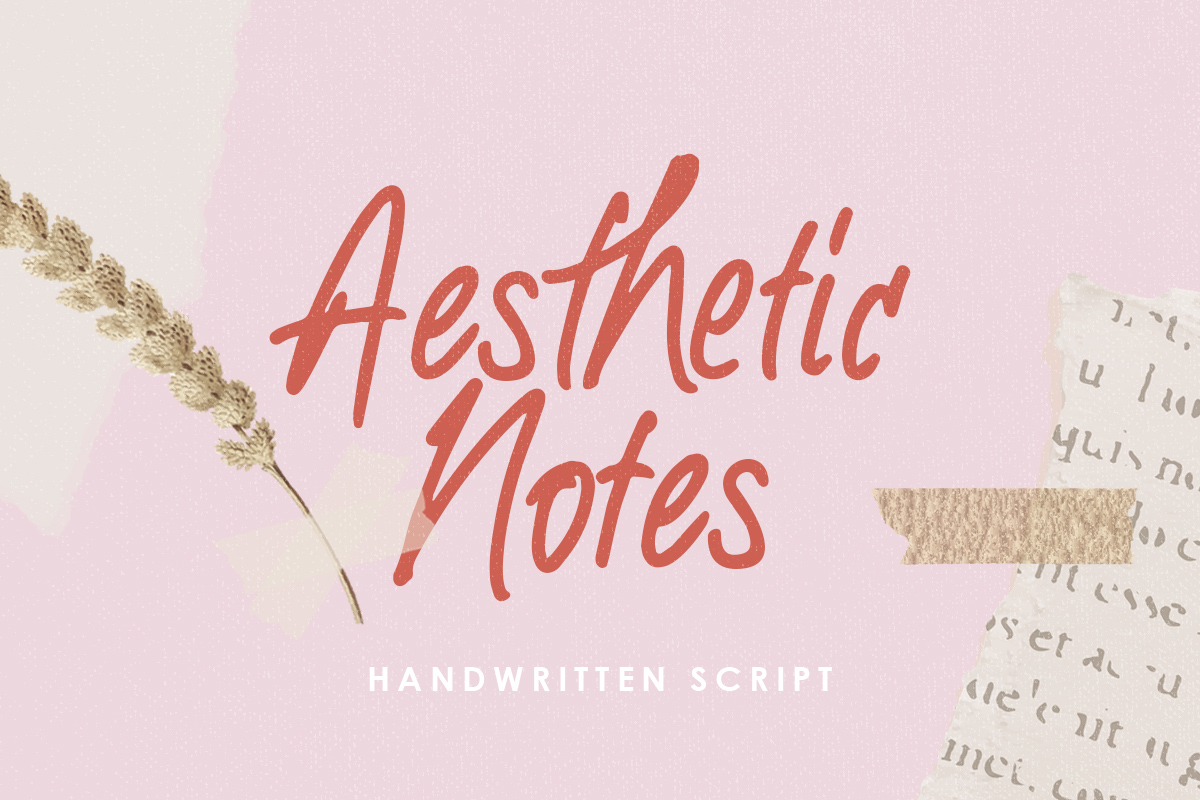
Aesthetic Notes Font
The Aesthetic Notes Font is perfect for minimalist social media graphics, trendy lifestyle blogs, modern journaling apps, aesthetic stationery designs, contemporary art galleries, stylish personal brands, clean productivity planners, and sophisticated digital publications. This refined typeface brings effortless modern elegance to any design project requiring aesthetic simplicity and contemporary visual appeal.
What makes the Aesthetic Notes Font so exciting is its perfect embodiment of current aesthetic trends that blend minimalist philosophy with subtle personality touches. The font features clean, carefully spaced letterforms with gentle curves and thoughtful details that create a sense of calm sophistication, making it ideal for brands and creators who embrace the aesthetic movement's emphasis on beauty, mindfulness, and visual harmony.
The Aesthetic Notes Font family includes thin, light, regular, medium, and bold weights, along with stylistic alternates and minimalist decorative elements, providing designers with versatile tools for creating cohesive aesthetic brand experiences and visually pleasing typographic systems that align with contemporary design sensibilities.
Whether you're developing brand identity for wellness companies, creating content for aesthetic social media accounts, or designing materials for contemporary lifestyle brands, this font delivers sophisticated simplicity. The carefully balanced letterforms ensure excellent readability across all platforms while conveying the calm, intentional aesthetic that resonates with audiences seeking beauty and mindfulness in their daily lives.
Creative professionals value the font's ability to communicate modern sophistication and aesthetic consciousness without appearing overly styled or commercial. The subtle design refinements create lasting visual appeal that helps brands establish authentic connections with audiences who appreciate thoughtful design and aesthetic living.
The Aesthetic Notes Font performs beautifully in both digital and print applications, adapting seamlessly to various media while maintaining its core message of elegant simplicity. The font's contemporary heritage makes it particularly effective for brands targeting aesthetically-minded millennials and Gen Z consumers who prioritize visual harmony.